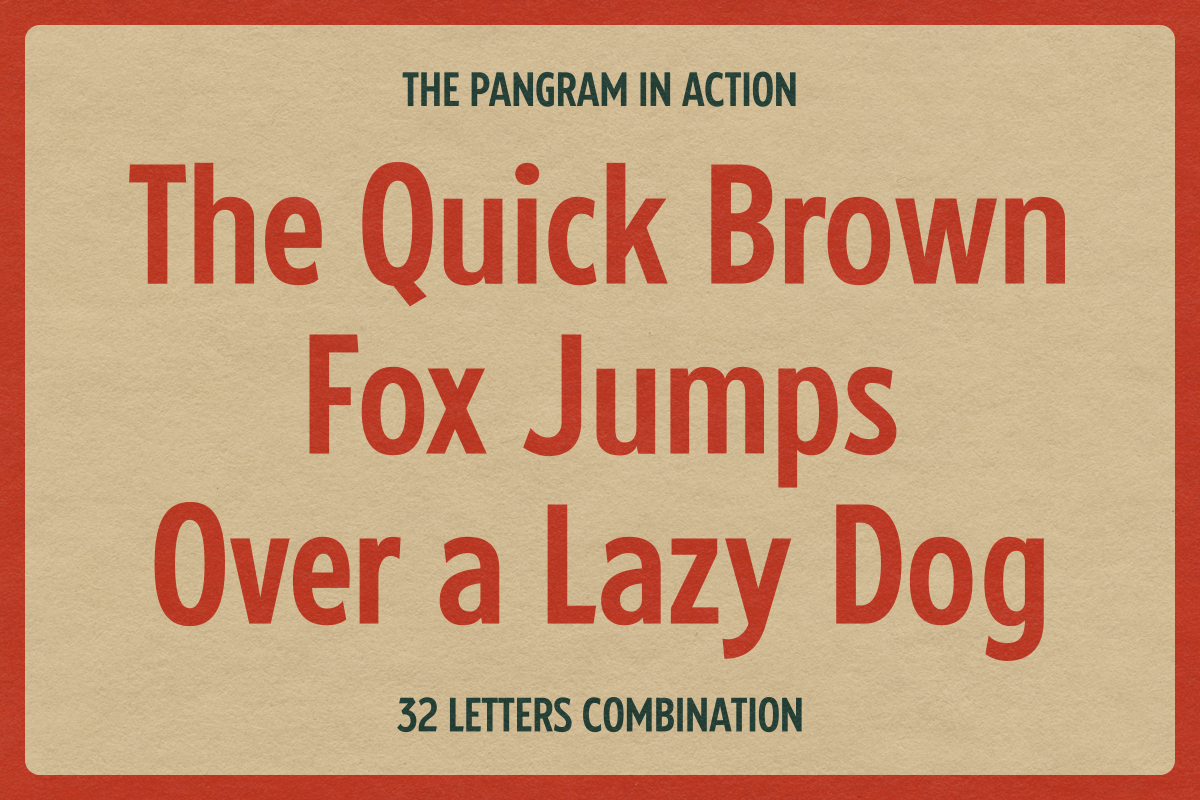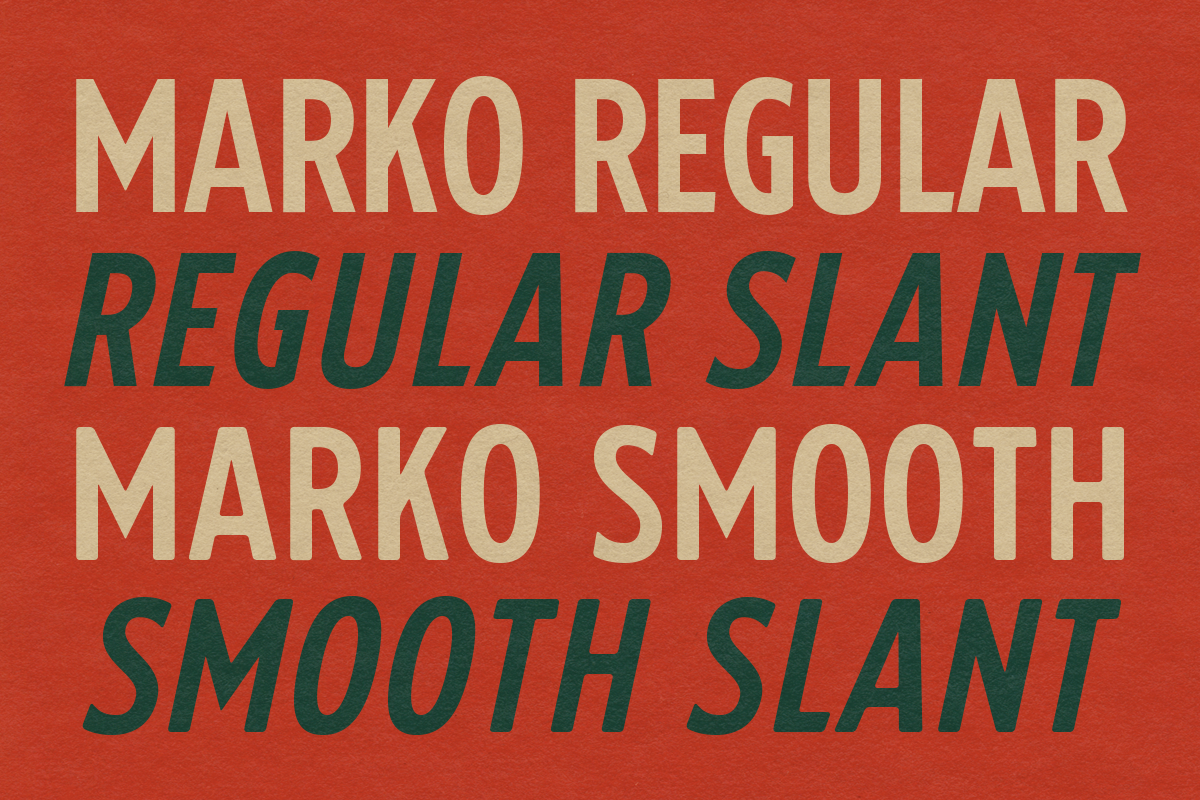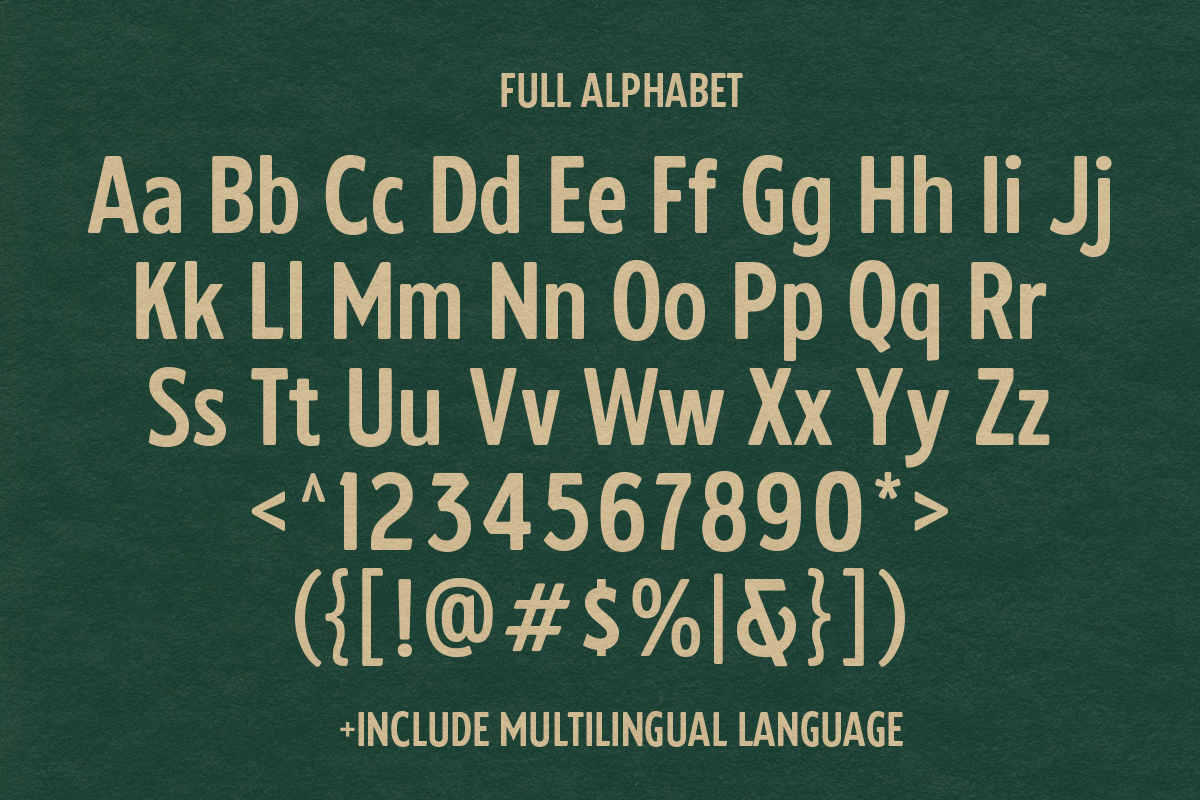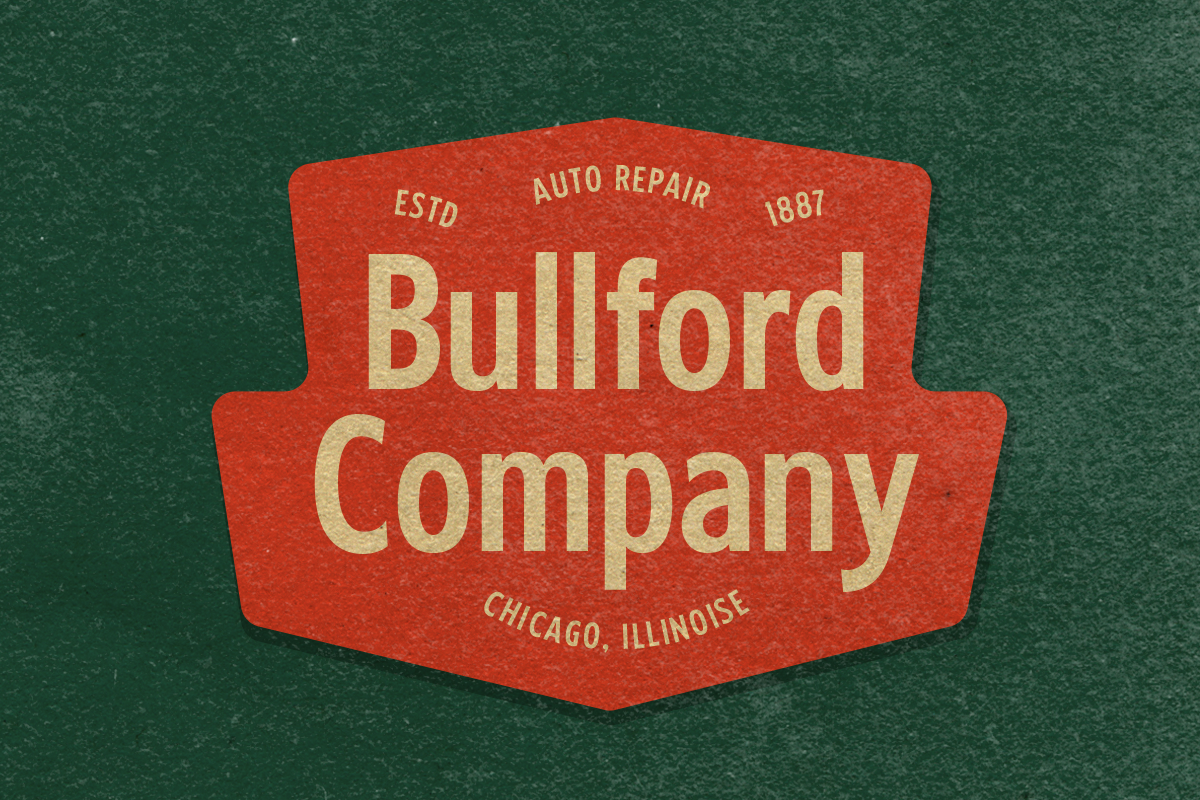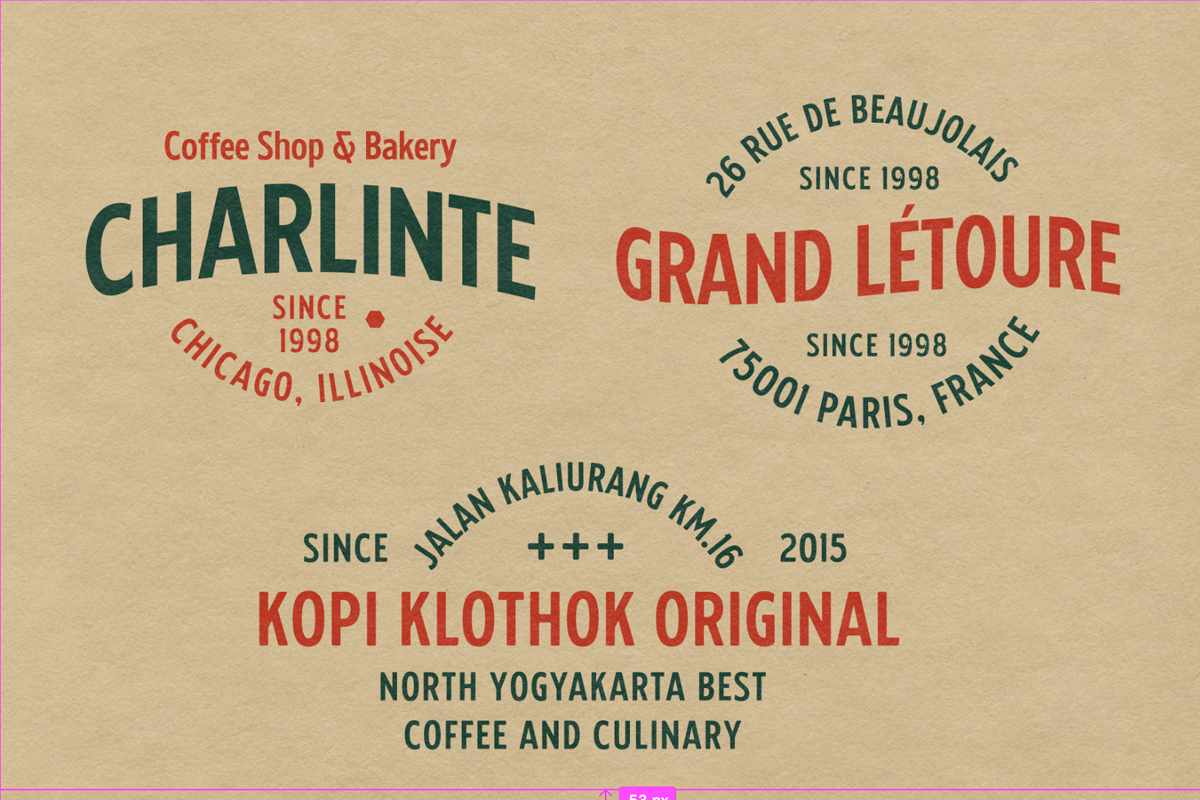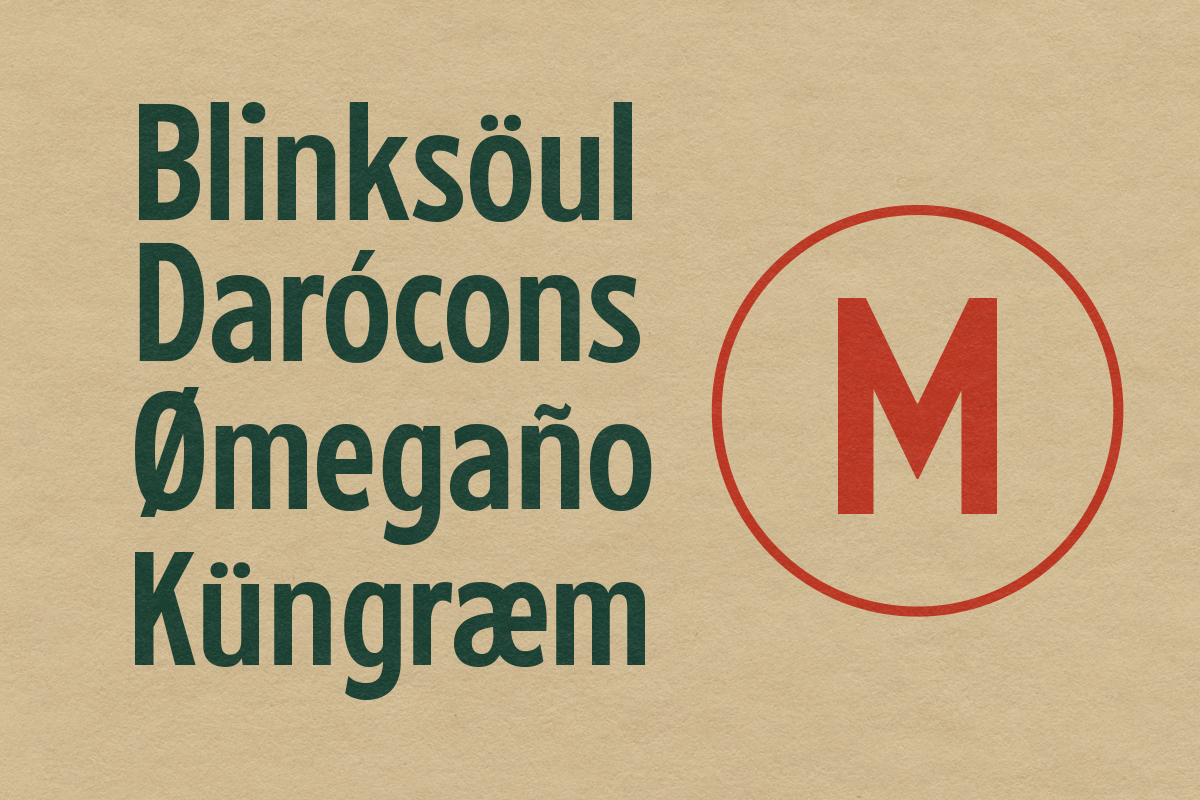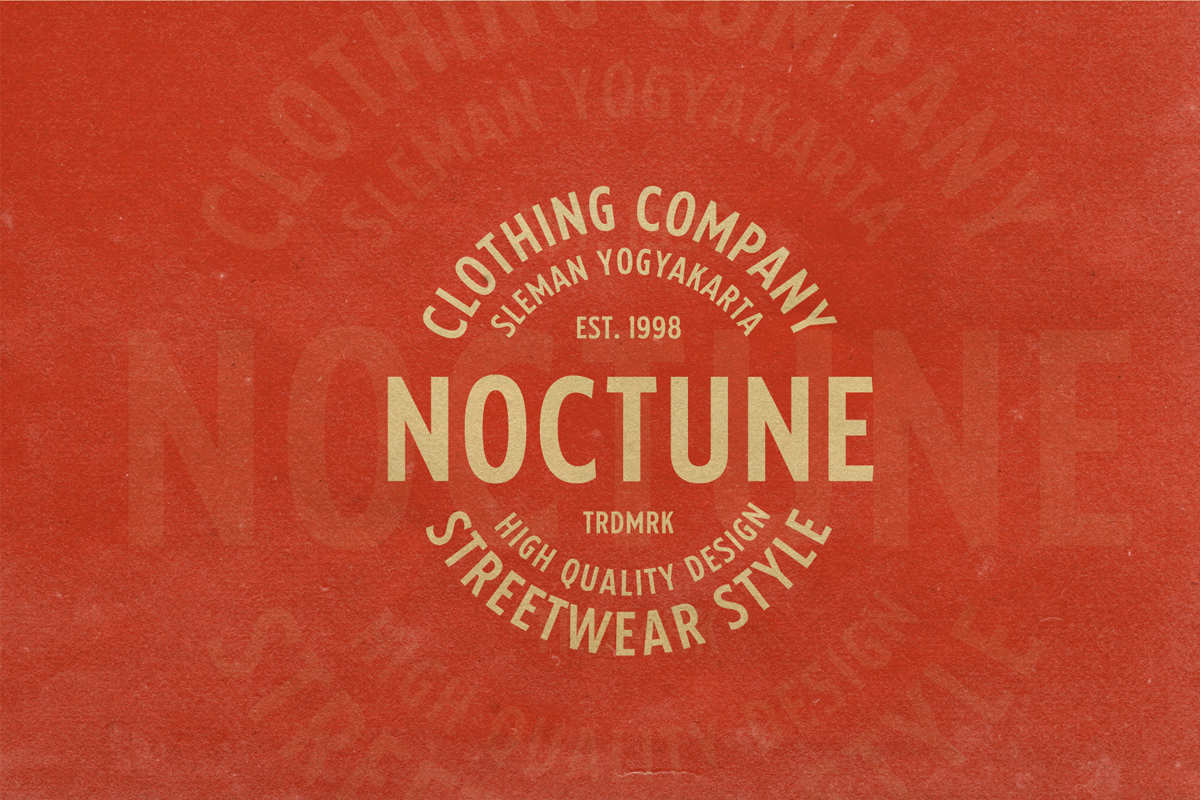
Marko Sans Display Font
MARKO SANS
Marko is a Sans Serif font designed carefully handcrafted, Goods for branding, T-shirt, Classic Design, Logotype, and any project espically in vintage or classic style.
- Marko Sans Regular
- Marko Sans Smooth
- Marko Sans Regular Slant
- Marko Sans Smooth Slant
Multilingual Support supports many different languages 20+.